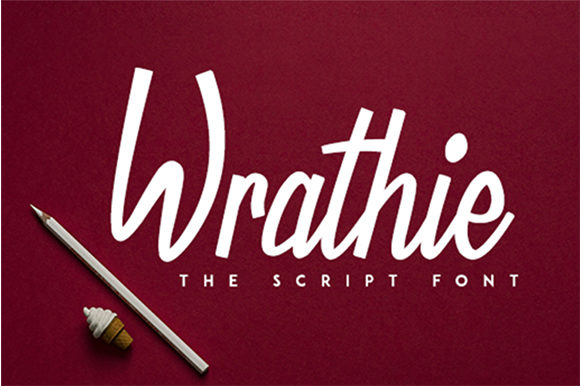
Wrathie Font: Unleash Your Creative Charm with an Enchanting Handwritten Masterpiece
Step into a world of enchanting calligraphy with Wrathie Font, a captivating handwritten typeface designed to infuse warmth and personality into your creative expressions.
Crafted by the talented Justlett, Wrathie exudes a sweet and charming allure, perfectly capturing the essence of heartfelt writing. Its delicate strokes and playful flourishes lend a personal touch to any design, making it an exceptional choice for projects seeking a touch of human connection.
Indulge in the beauty of Wrathie's script, a visual symphony of smooth curves and elegant angles. Each letter dances across the page, carrying the weight of emotions and the magic of handwritten artistry. With Wrathie, your words take on a life of their own, captivating audiences with their authenticity and charm.
Whether you're crafting heartfelt letters, designing enchanting invitations, or adding a touch of whimsy to your social media posts, Wrathie Font empowers you to express yourself with unparalleled grace and emotion. Its versatility knows no bounds, seamlessly adapting to a variety of styles and applications.
Embrace the charm of Wrathie Font today, and let your creativity flow with an enchanting touch of handwritten elegance.